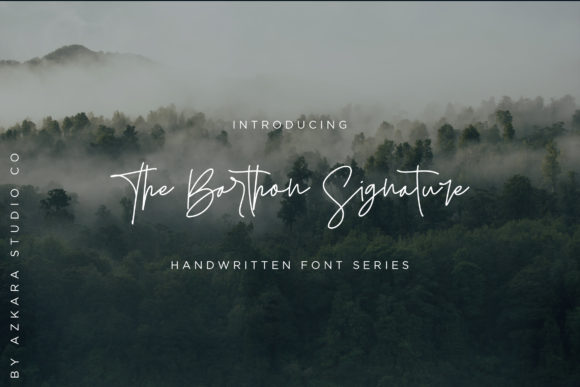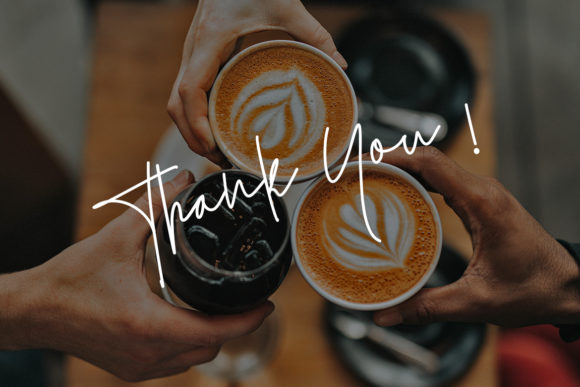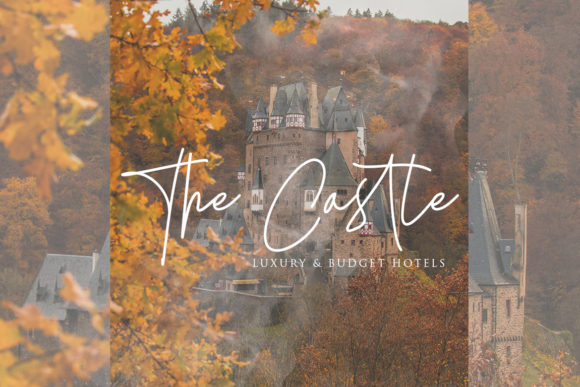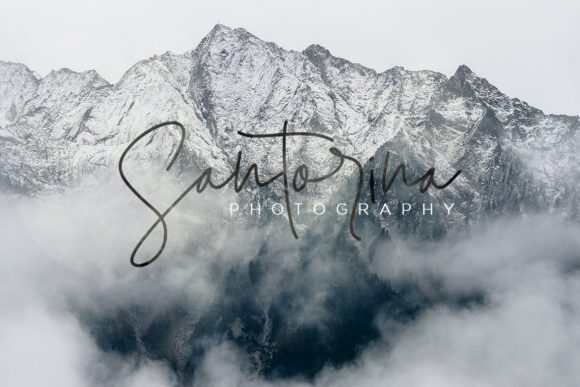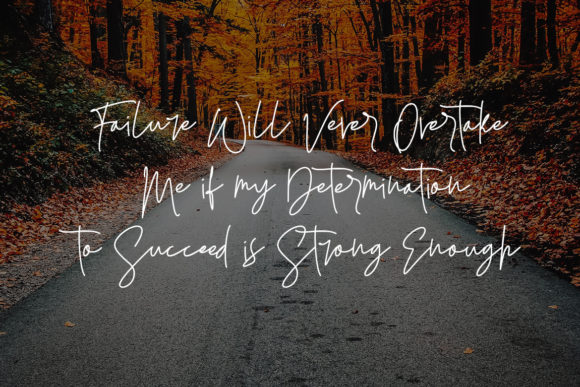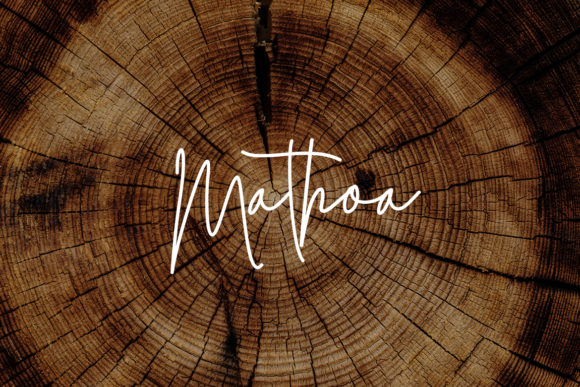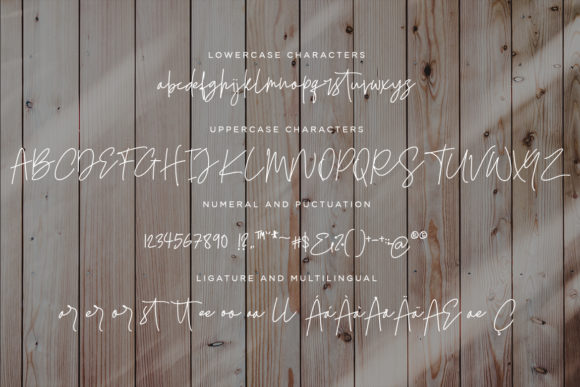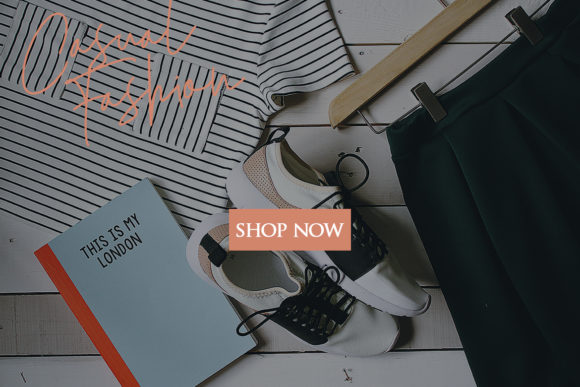
The Barthon Font
About The Barthon Font
The Barthon is a stunning handwritten font with a contemporary approach to design. It will add an editorial feel to any design idea!